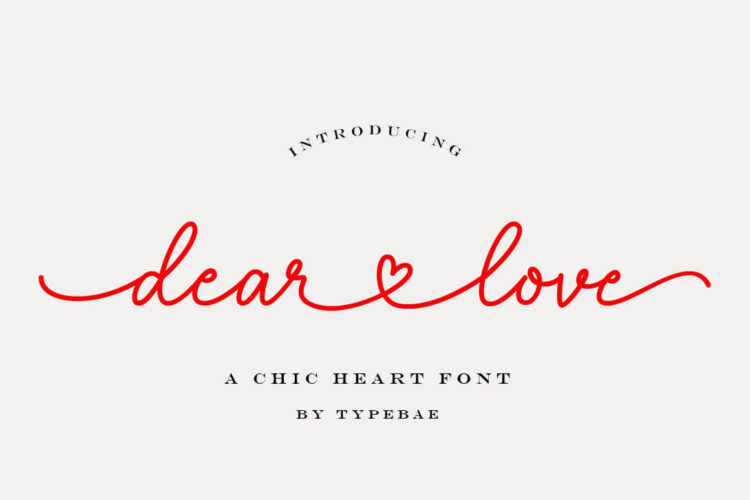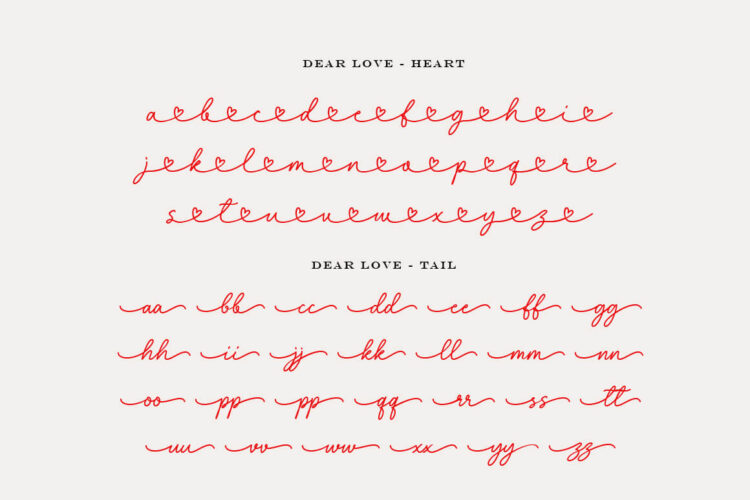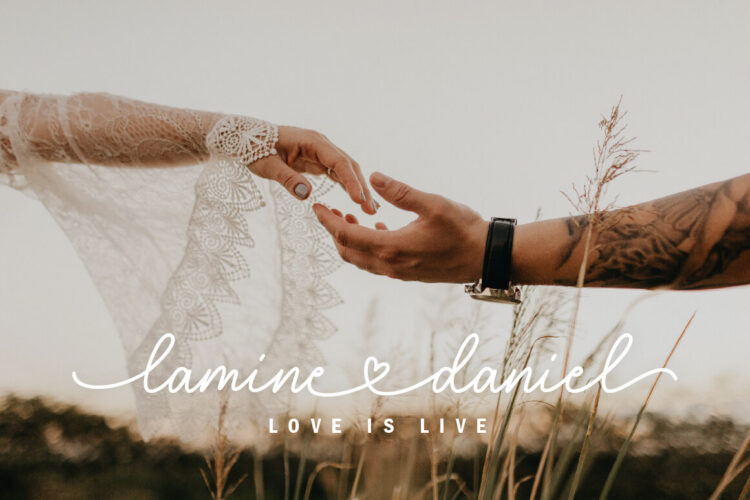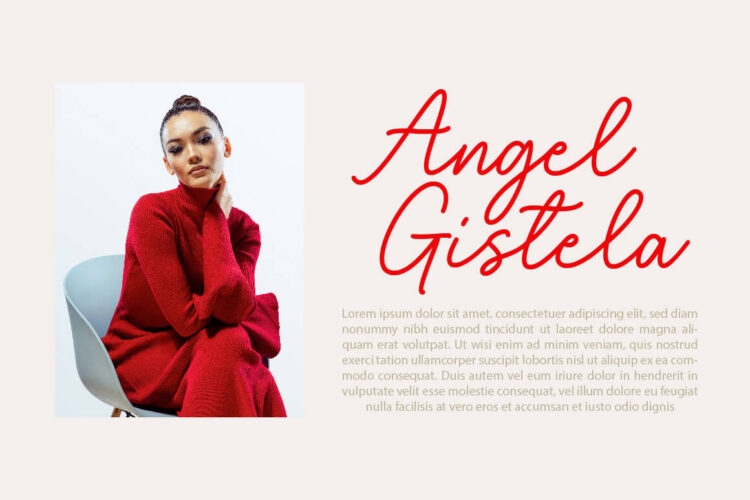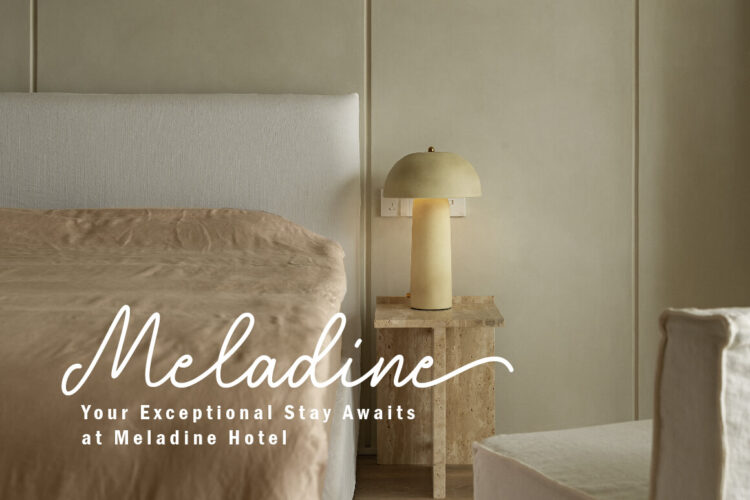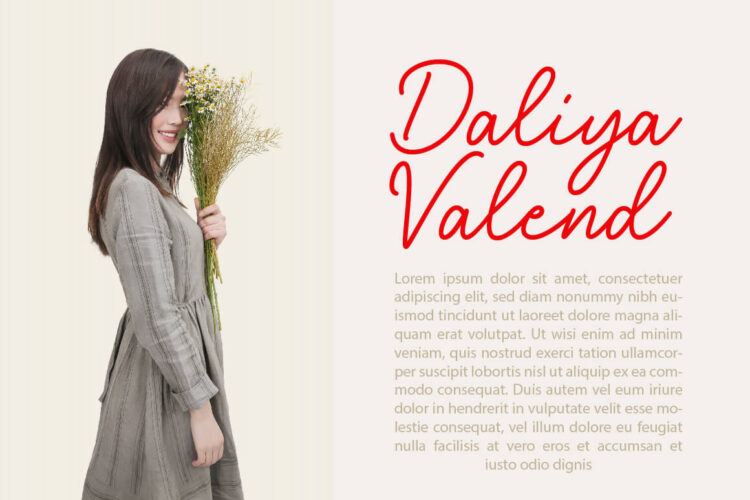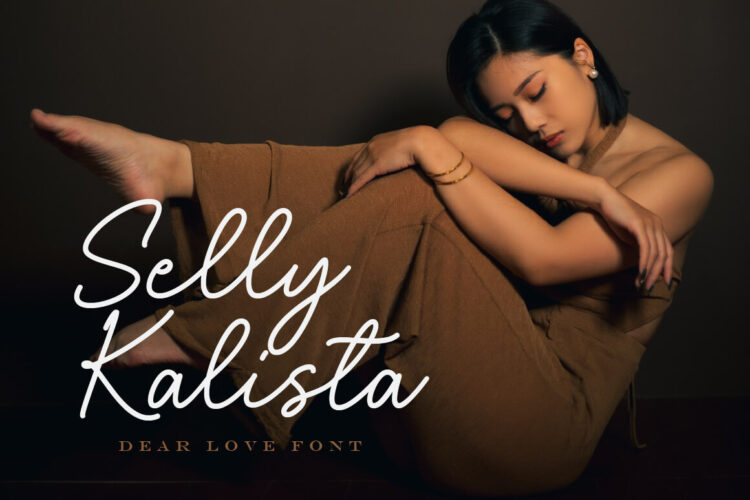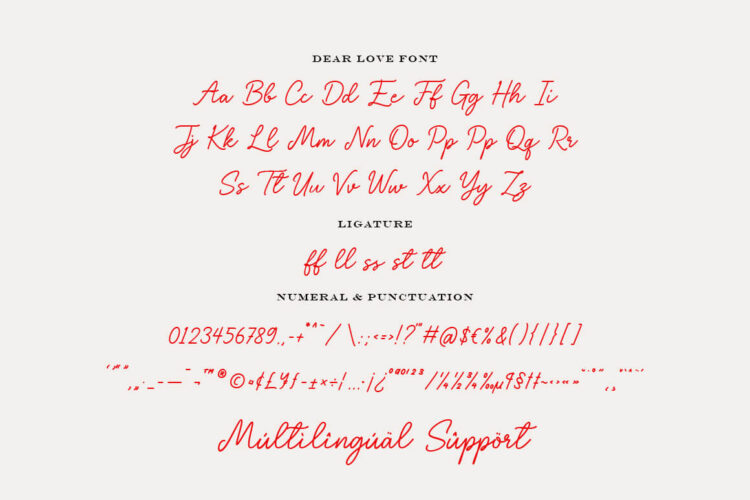
Dear Love Font is a beautiful handwritten script font that exudes elegance. It contains intriguing tails at the start and end of each stroke. The distinctive element of the font is its heart-shaped connecting tail, which adds a romantic and attractive touch. The delicate elegance of Dear Love Font will amaze and inspire you.
To use alternates, heart connector, beginning and ending swashes, you don’t need to use software that supports opentype, because we have made it separately so it’s very easy to use.
Feature: Ligature, Multilingual and PUA encoded.